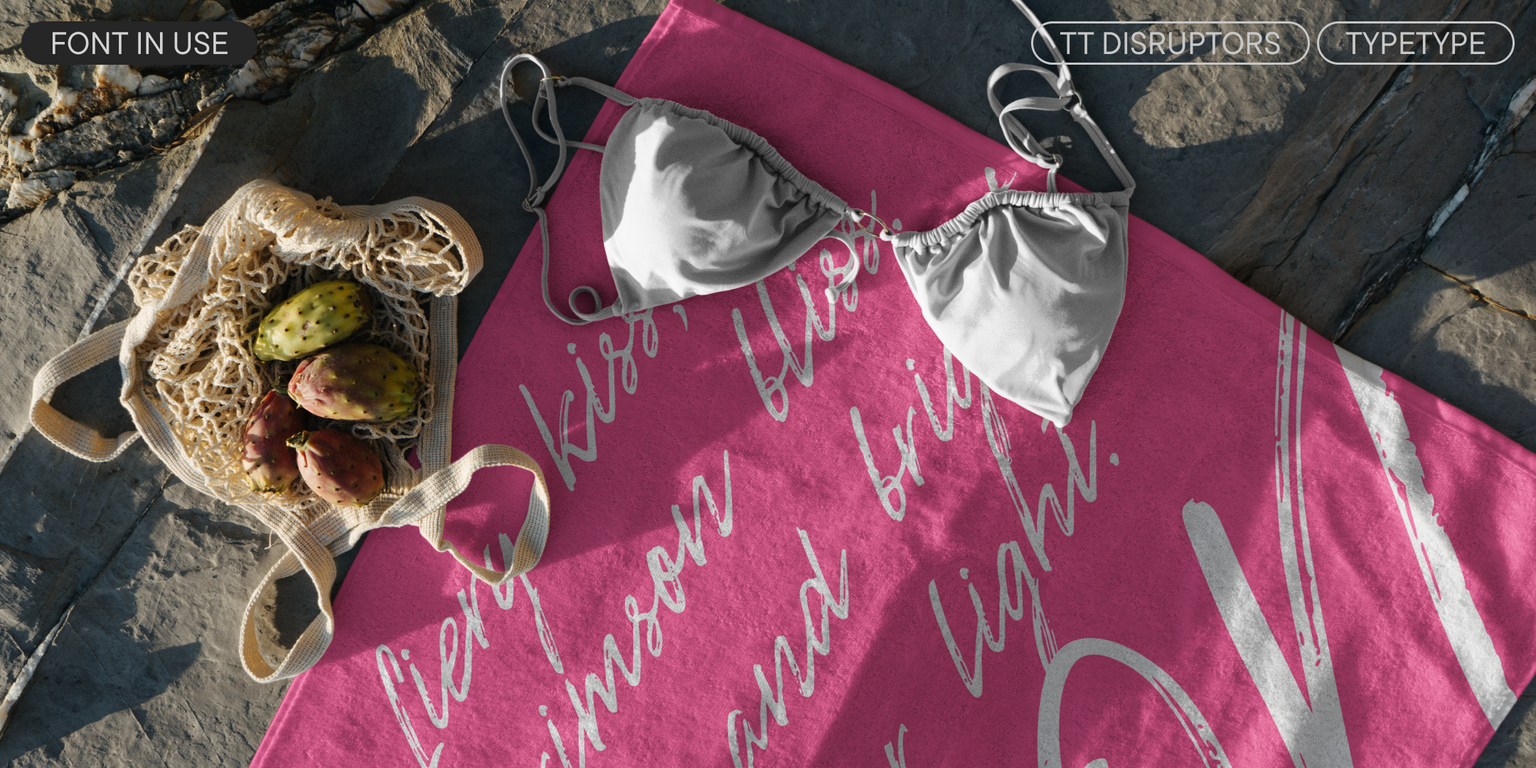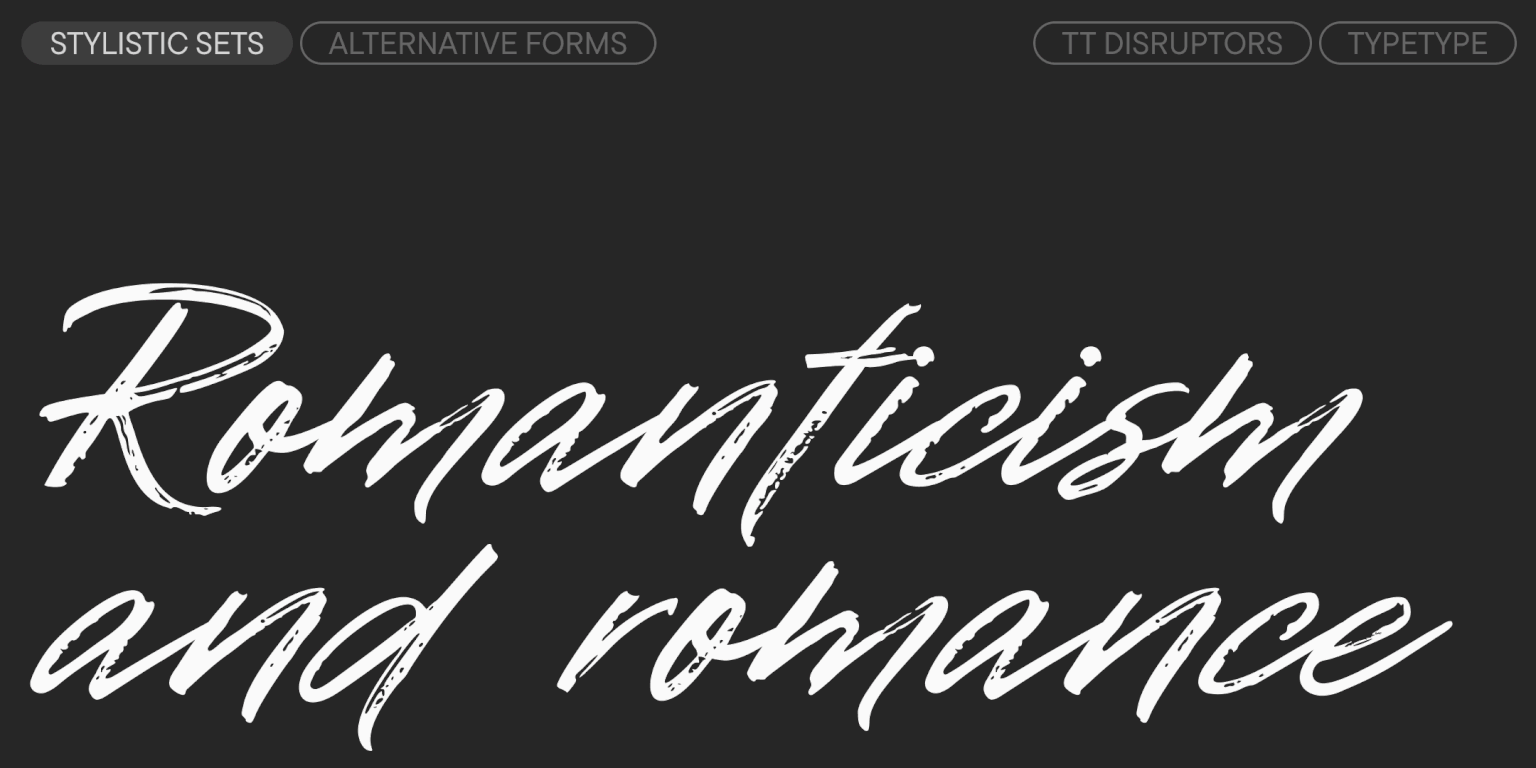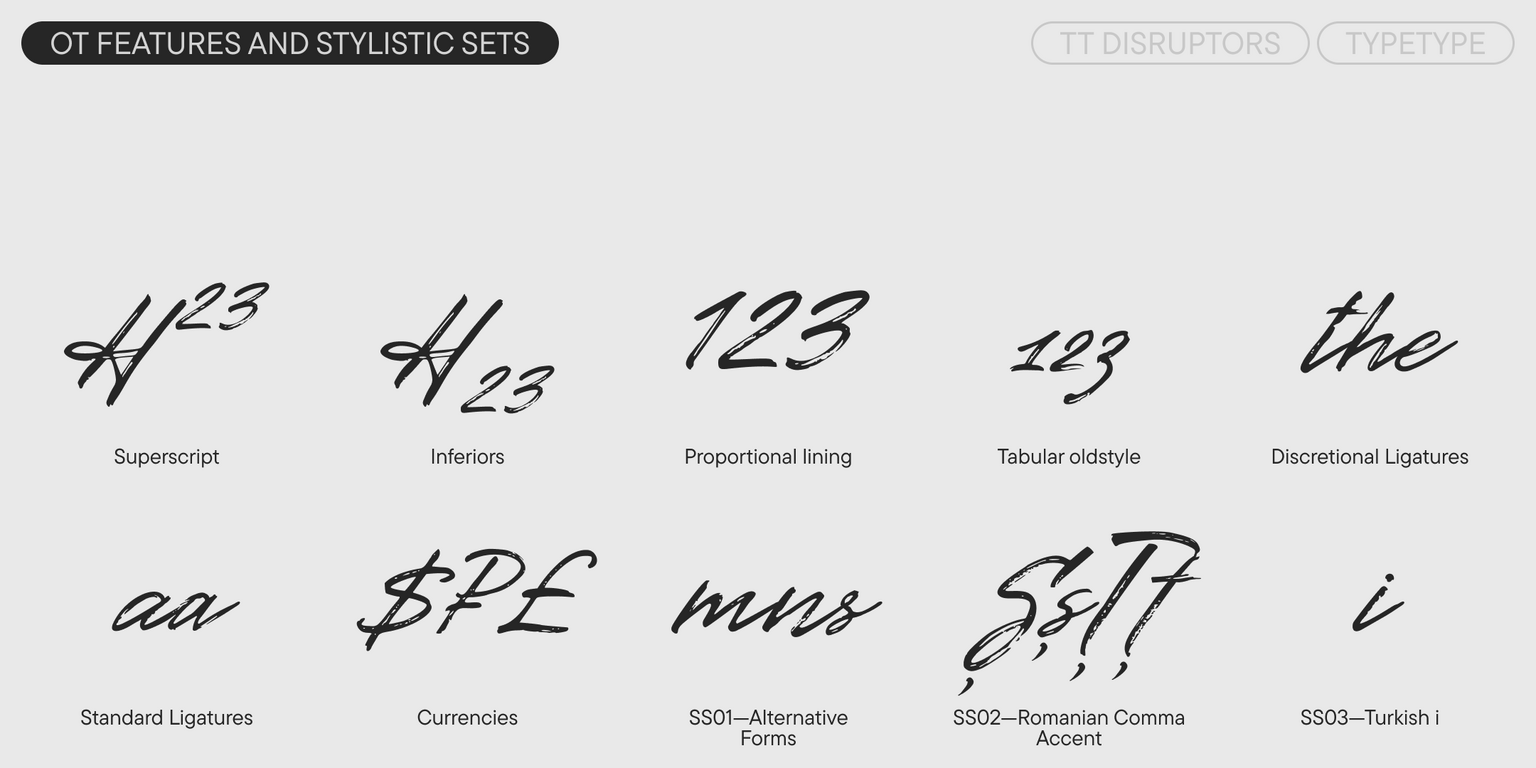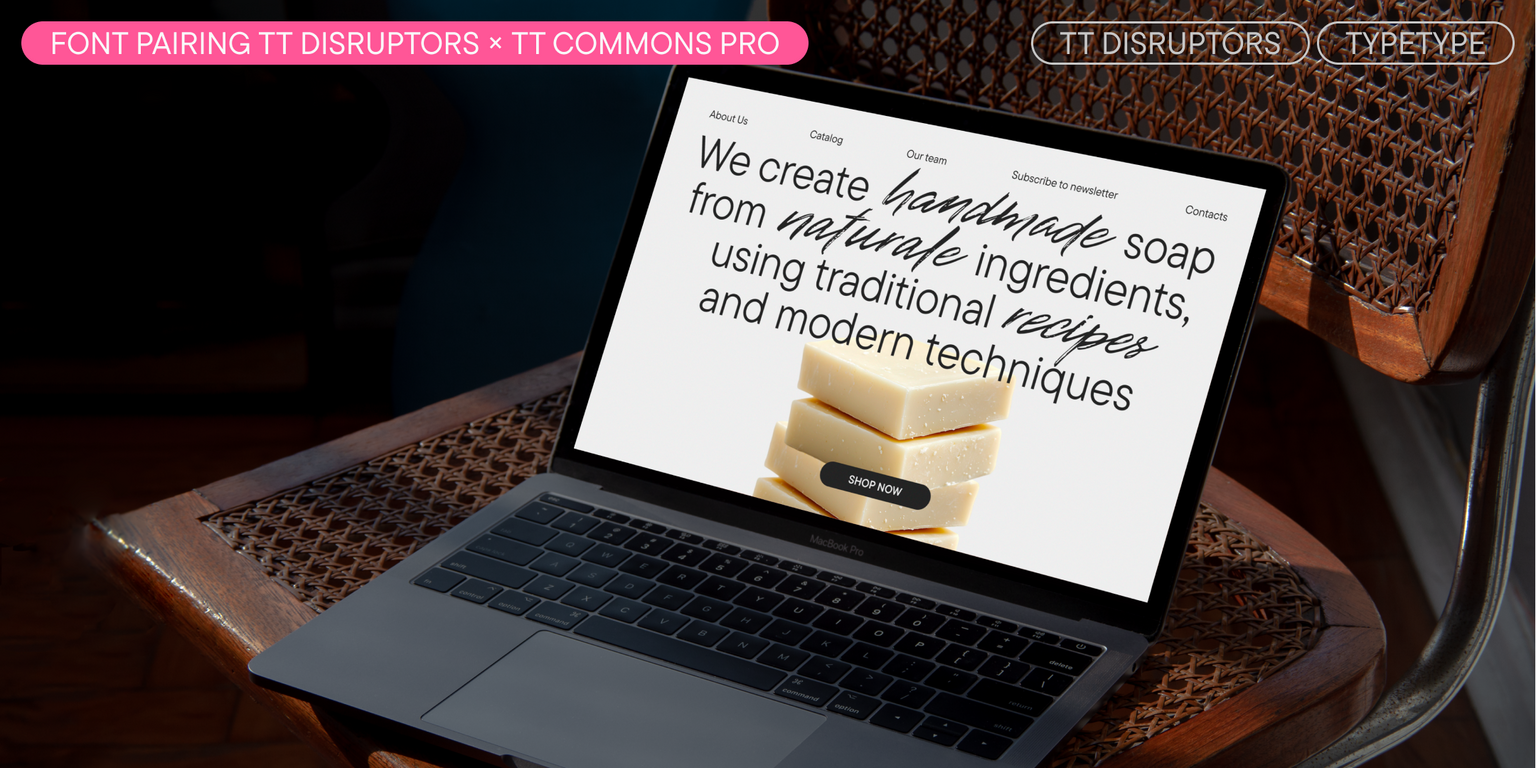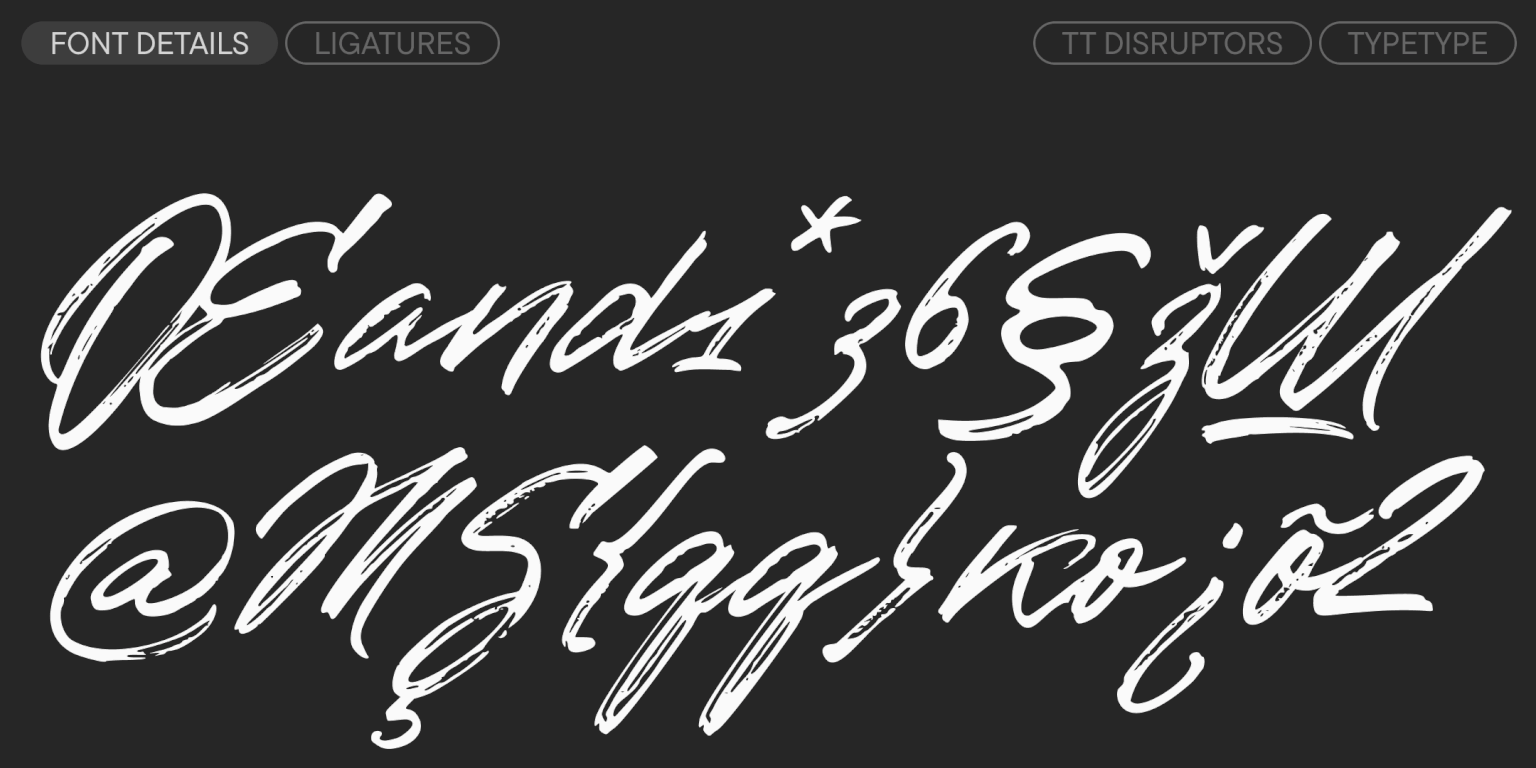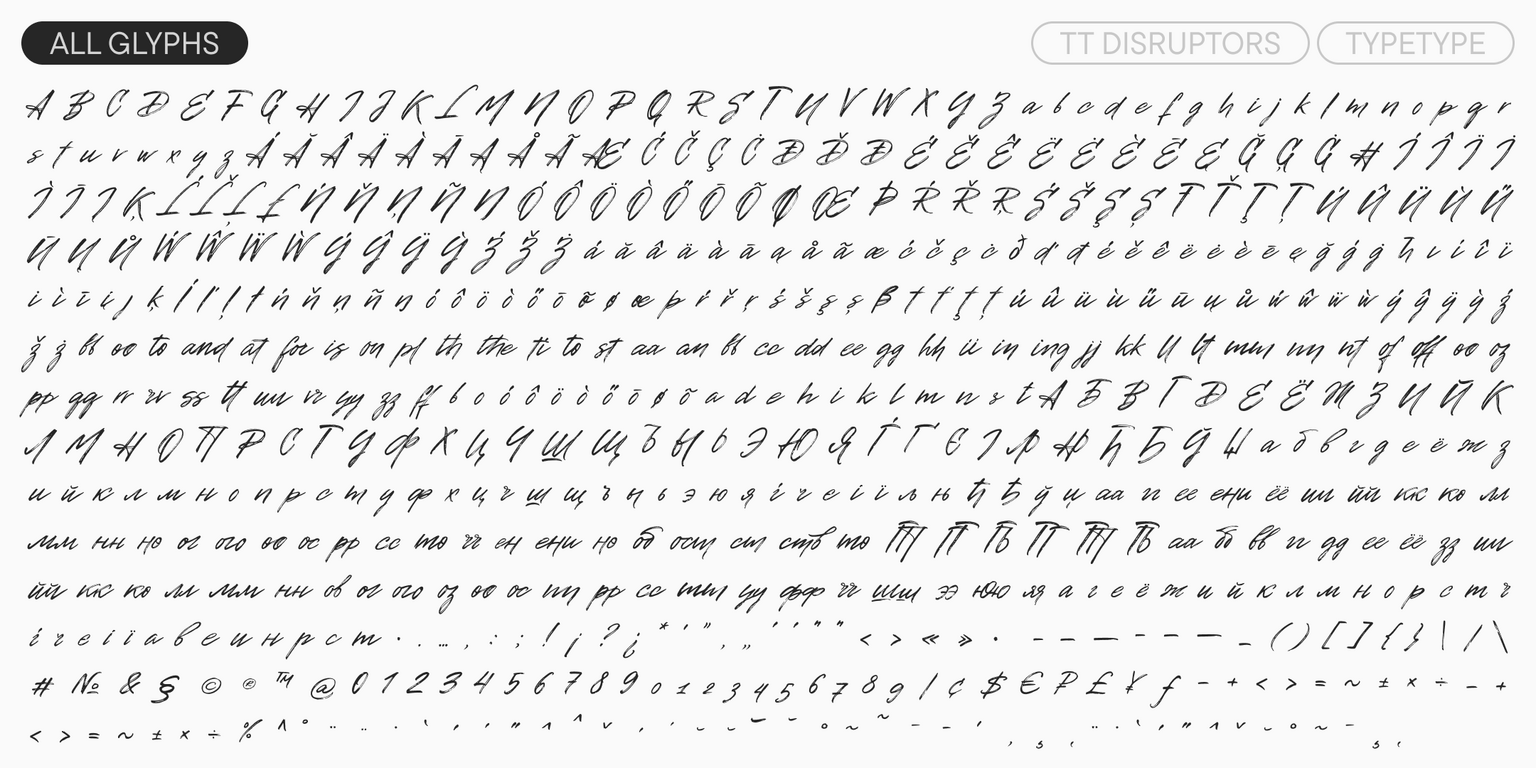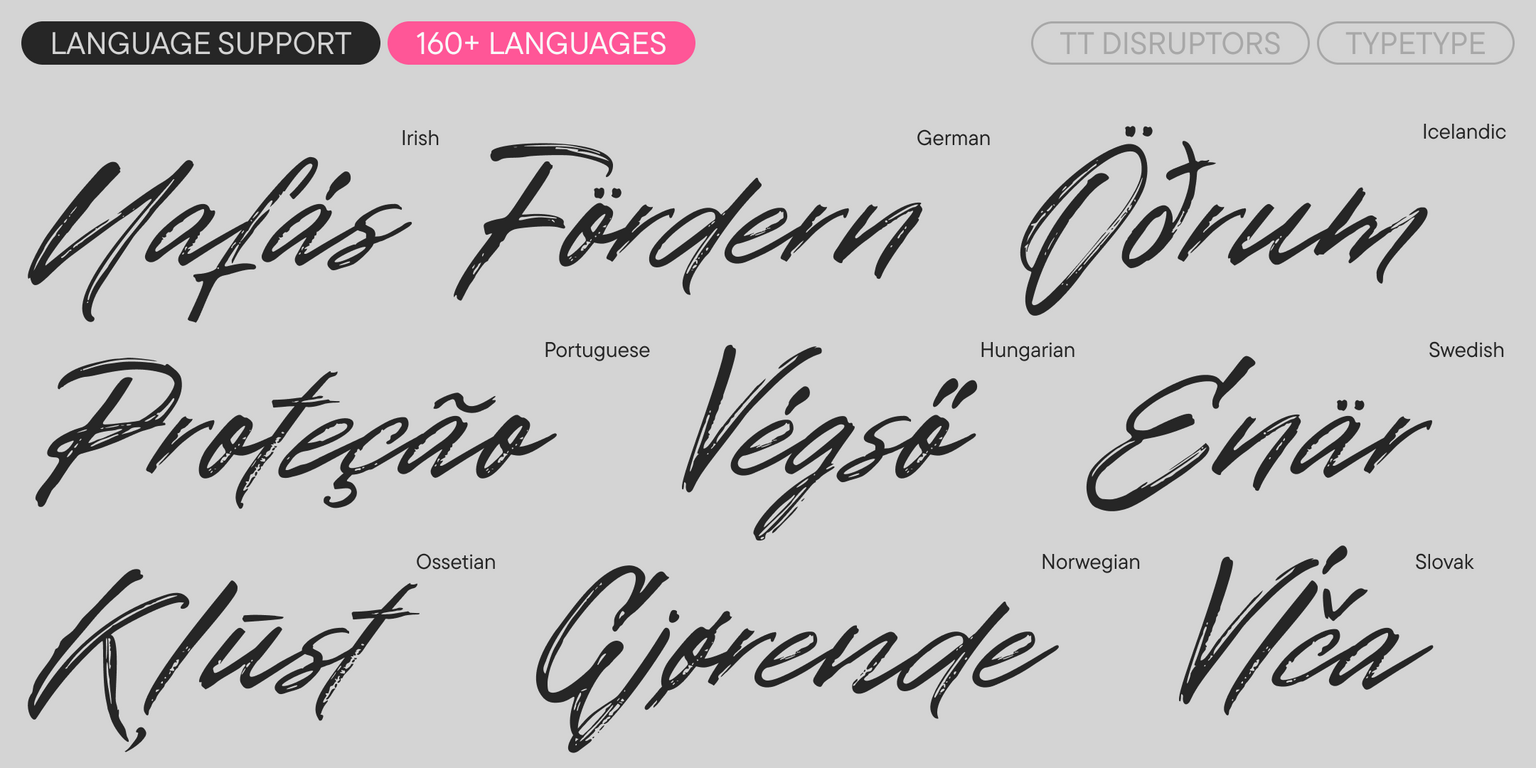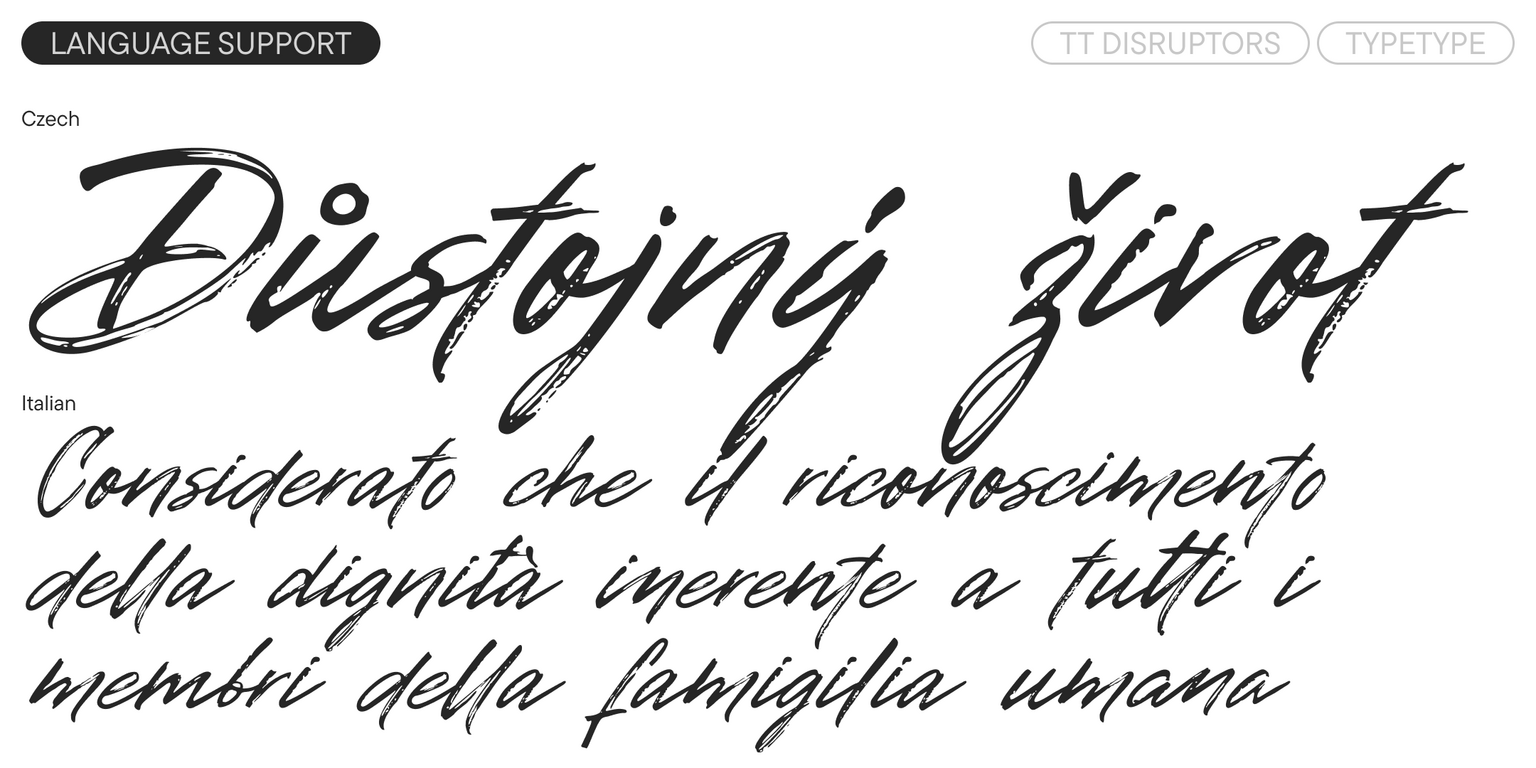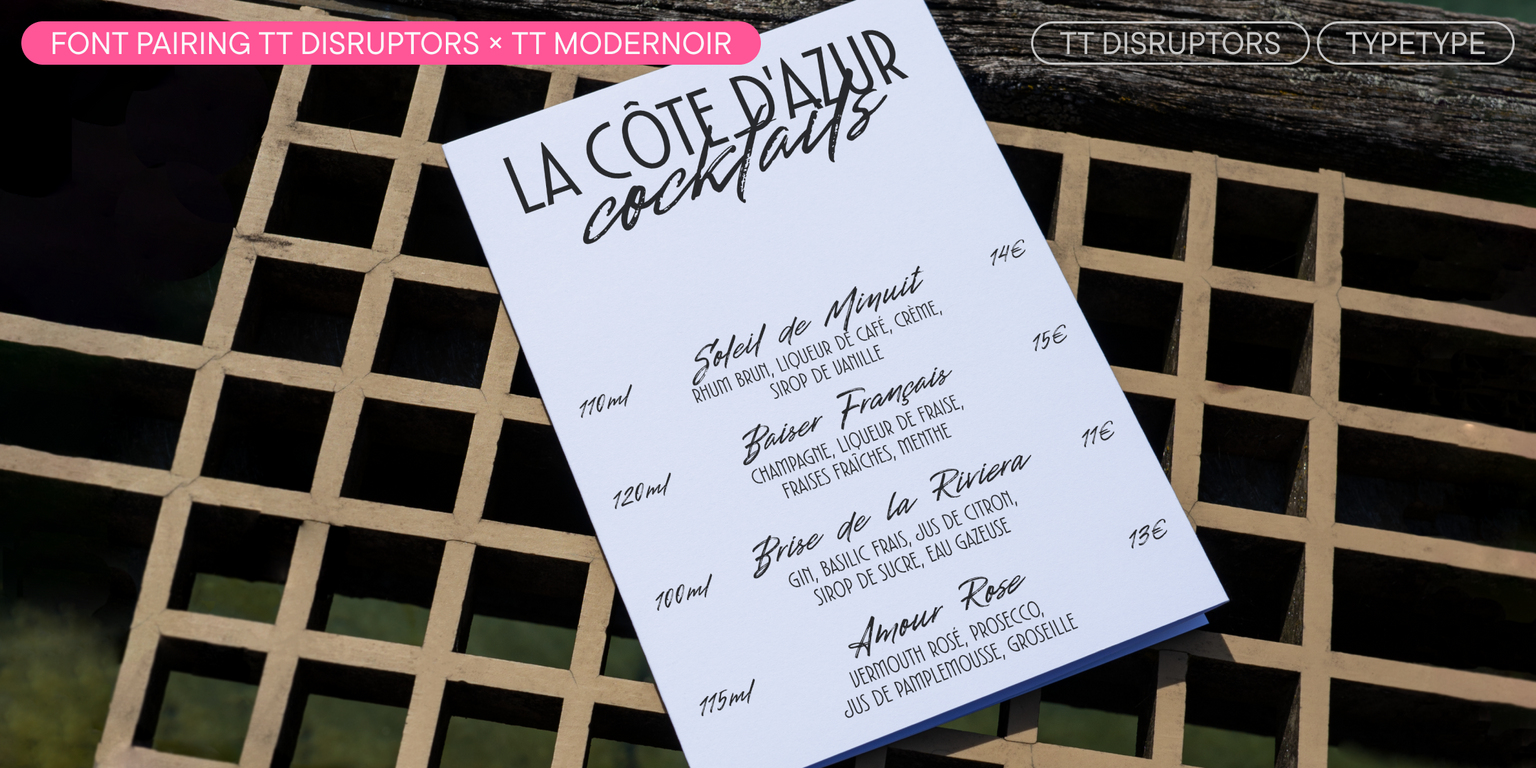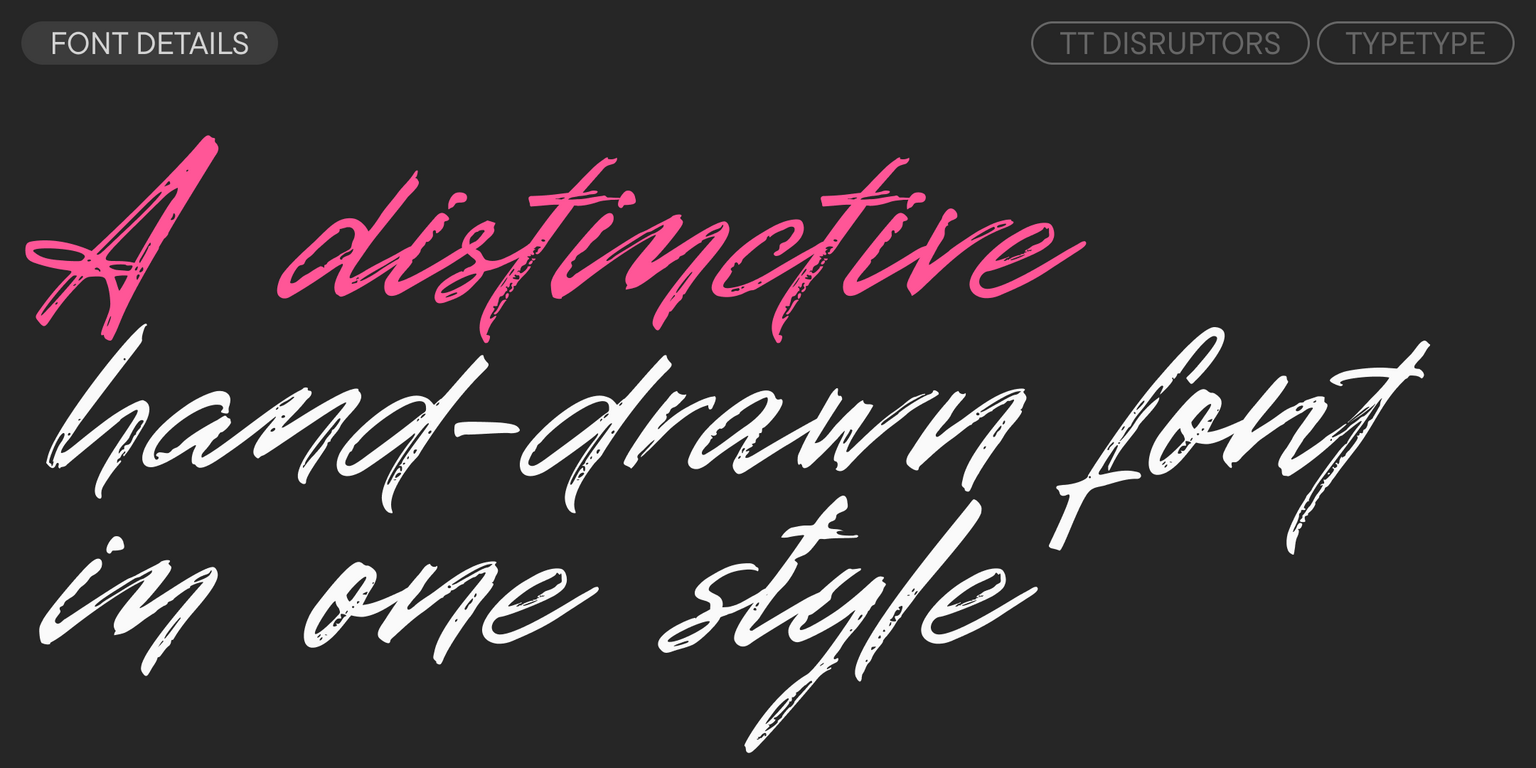
TT Disruptors is a ductile marker-drawn handwritten typeface with a rebellious yet warm personality. It is emotional and expressive while maintaining readability.
160+ Language support
Introducing the new decorative TT Disruptors!
A distinctive script font with a uniquely vibrant character.
TT Disruptors is a ductile marker-drawn handwritten typeface. Its design is one-of-a-kind: worn edges, varying stroke thickness, and elongated ascenders and descenders give it a lively, dynamic texture and handcrafted feel. The personality of this font is spirited and emotional, yet warm and soulful.
TT Disruptors is rich with context alternates that enhance its expressiveness. We’ve developed alternative forms for frequently used letters. When typing, these automatically change depending on neighboring characters, ensuring the text looks captivating with any letter combination.
Additionally, TT Disruptors includes functional ligatures for the most common two and three-letter combinations, adding variety to the text, breaking the monotony of typesetting, and introducing an element of surprise. For maximum impact, we recommend always enabling the context alternates (calt) and standard ligatures (liga) features.
This typeface is perfect for packaging design, branding, and creating visual identities. It’s an ideal choice for projects where handcrafted authenticity, individuality, and expression are key.
TT Disruptors includes:
• 1 style
• 621 glyphs
• 12 OpenType features
• Support for more than 160 languages
TT Disruptors—handcrafted, dynamic, inspiring!
OpenType features
onum | Oldstyle Figures
SS01 | Alternative Forms
SS02 | Romanian Comma Accent
SS03 | Turkish i
liga | Standard Ligatures
dlig | Discretionary Ligatures